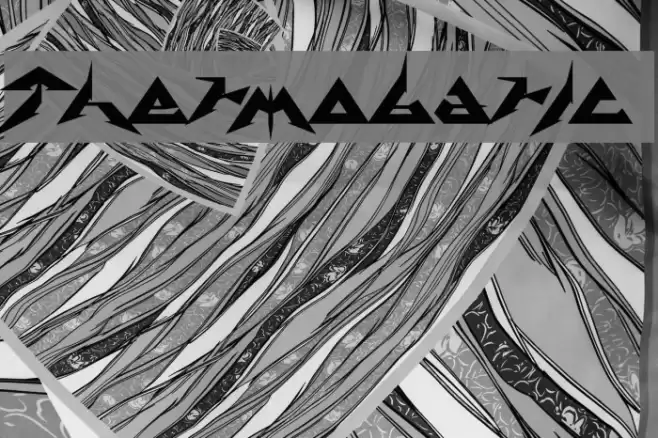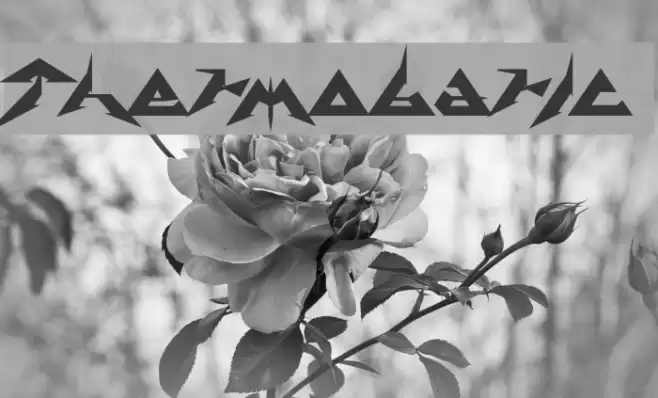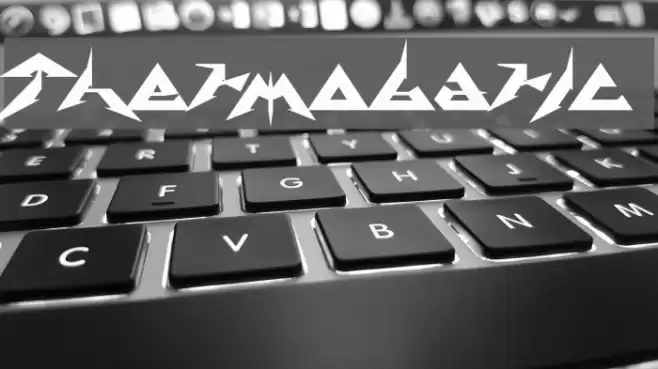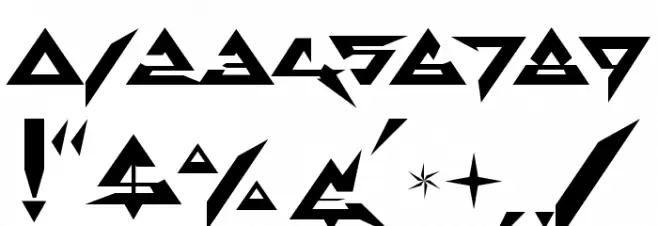
Thermobaric Font
Thermobaric Description
This font features a highly stylized, angular design with sharp, pointed edges and a futuristic aesthetic. Each character is crafted with a series of jagged lines and geometric shapes, giving it a dynamic and aggressive appearance. The uppercase and lowercase letters maintain a consistent style, with exaggerated angles and a bold presence. Numbers and special characters follow the same design principles, ensuring uniformity across the font. The overall look is reminiscent of a sci-fi or cyberpunk theme, making it ideal for projects that require a modern and edgy feel.
A futuristic, angular font with sharp, jagged edges and a bold, dynamic style from Uncategorized fonts.
- Proposed Projects: Ideal for sci-fi themed posters, video game graphics, futuristic branding, and edgy logo designs.
- Overall Style: Futuristic, Edgy